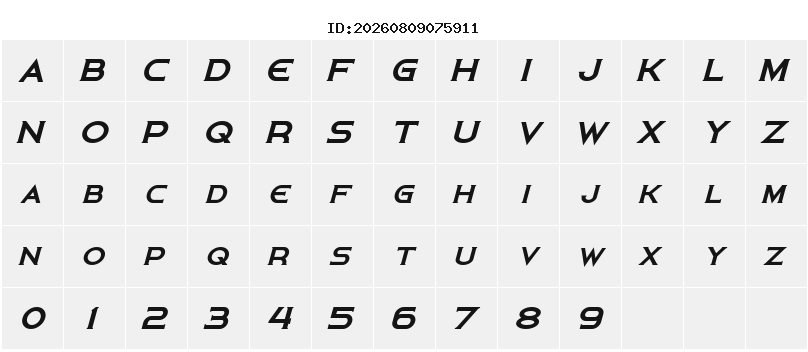
Persis Preview
• Designer: Neale Davidson
About Persis.otf
Persis.otf is a modern, elegant sans-serif font designed for ultimate readability and visual harmony. Perfect for branding, headlines, web design, and print materials.